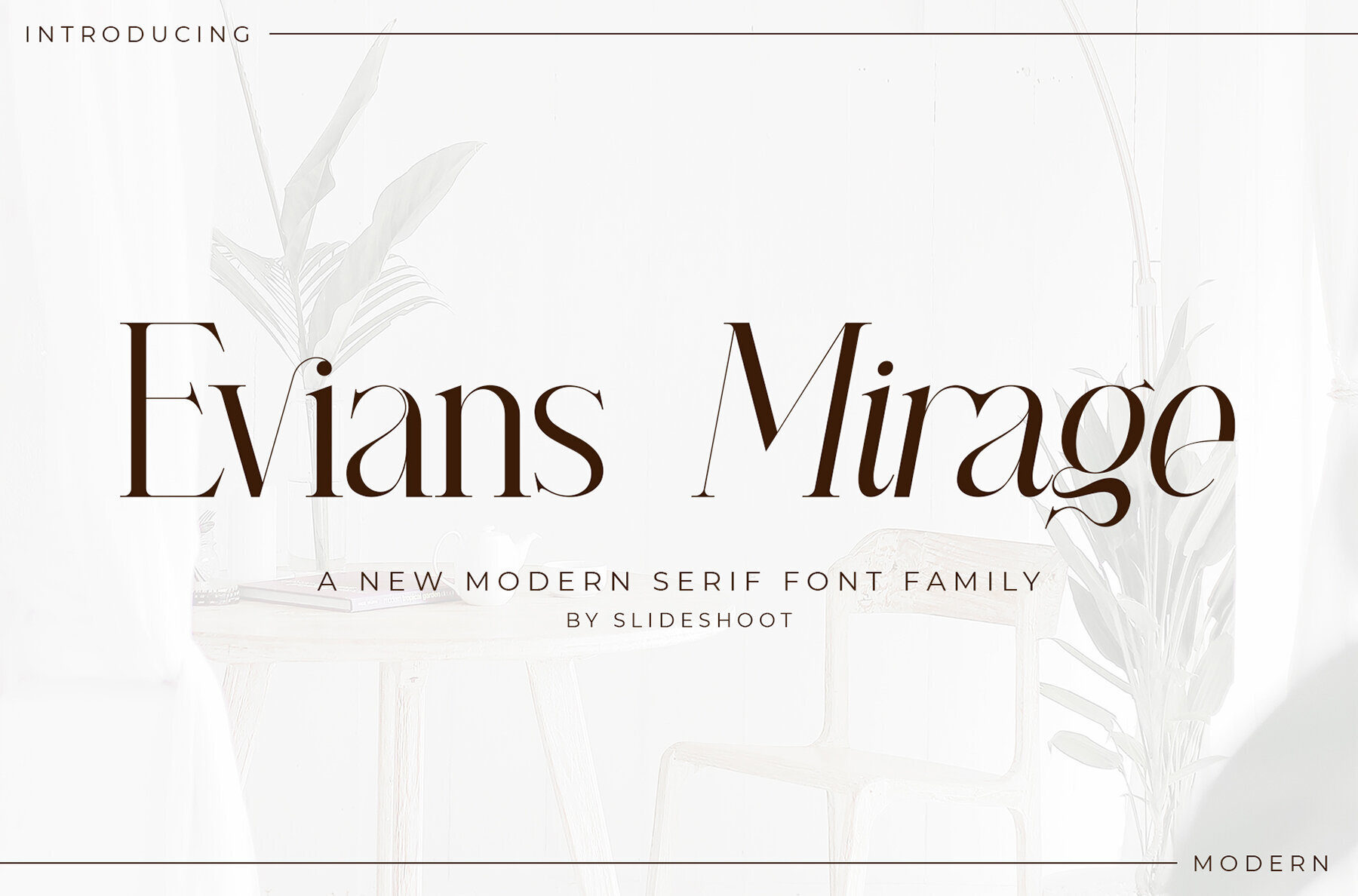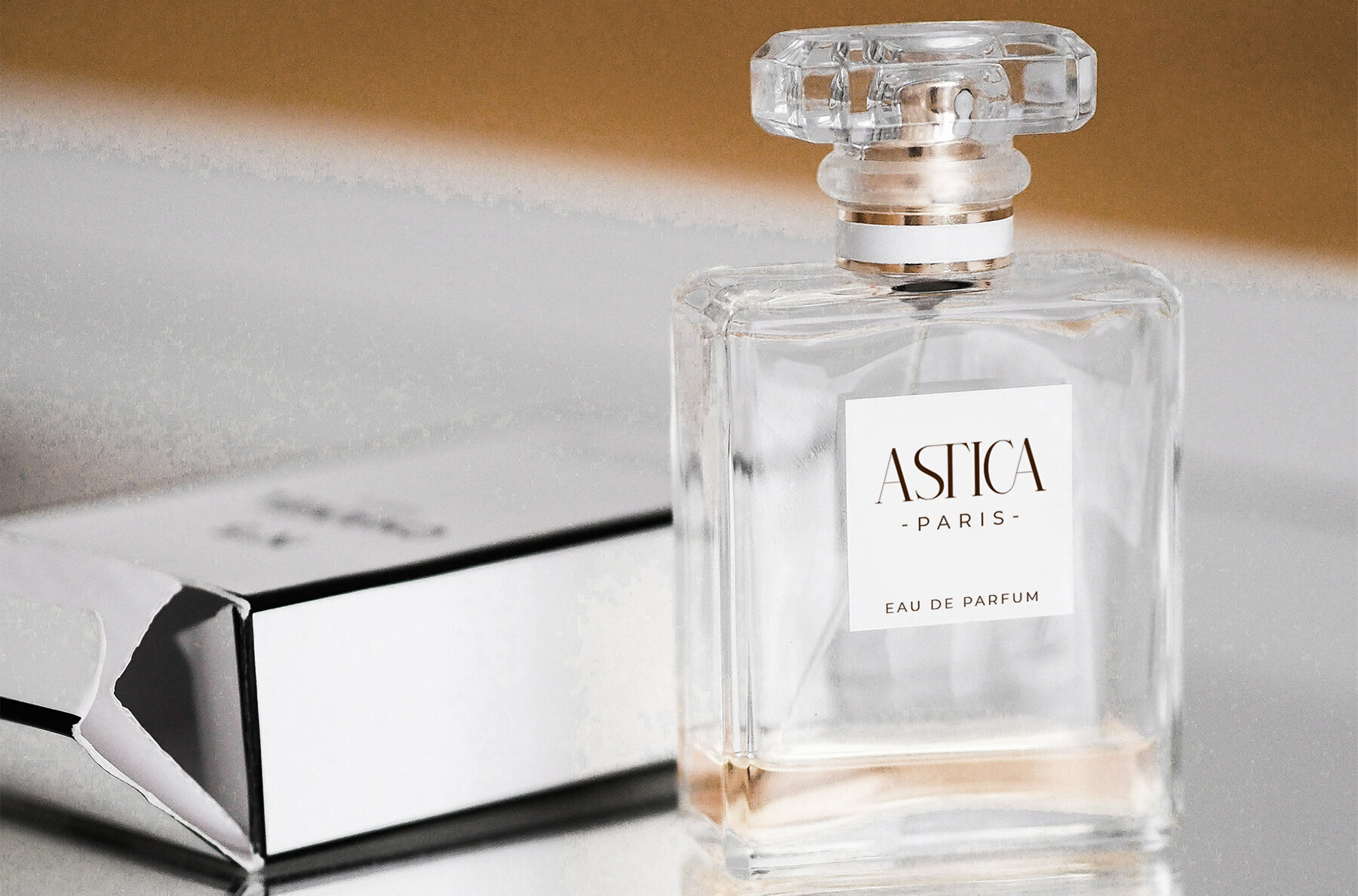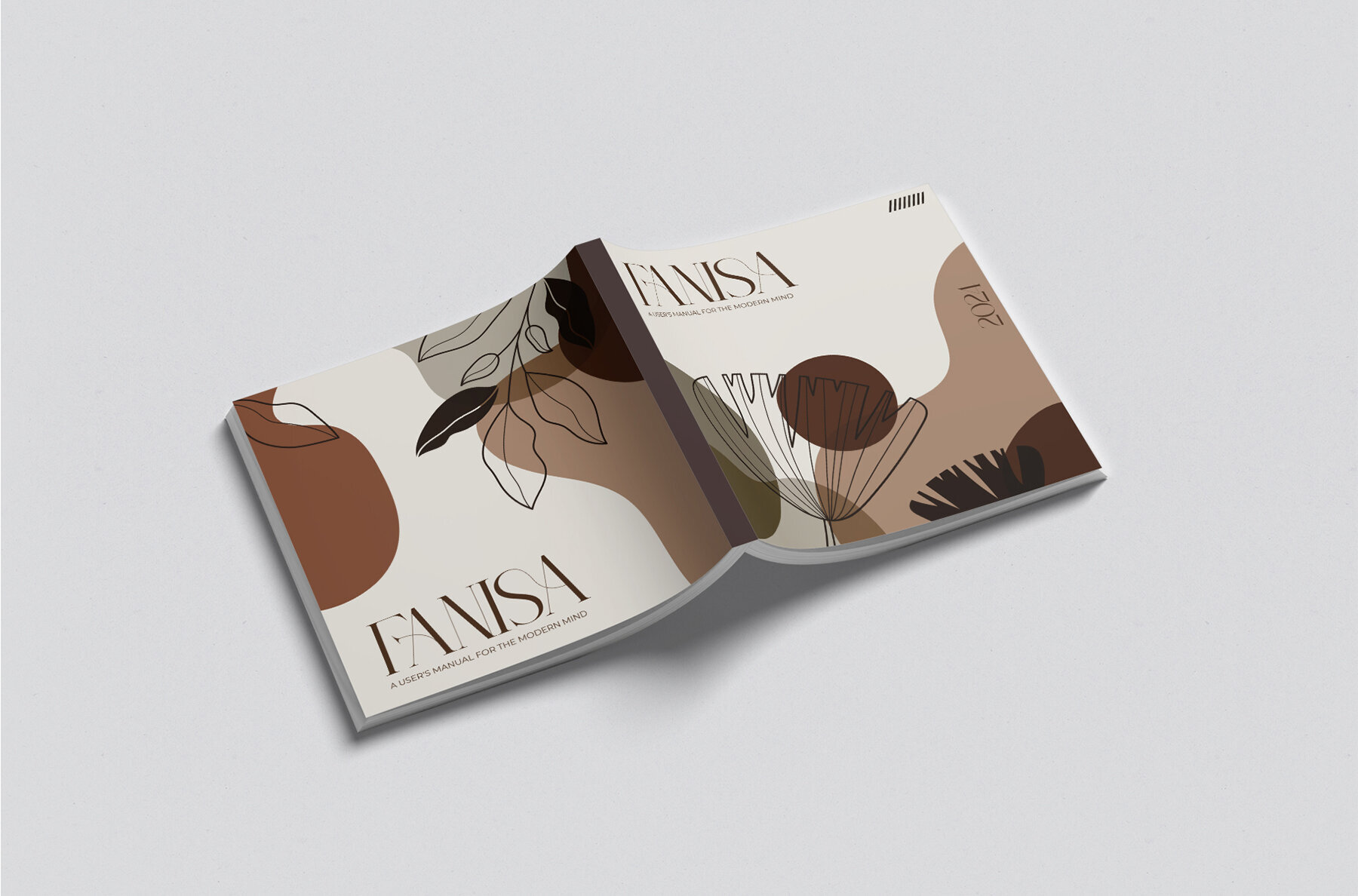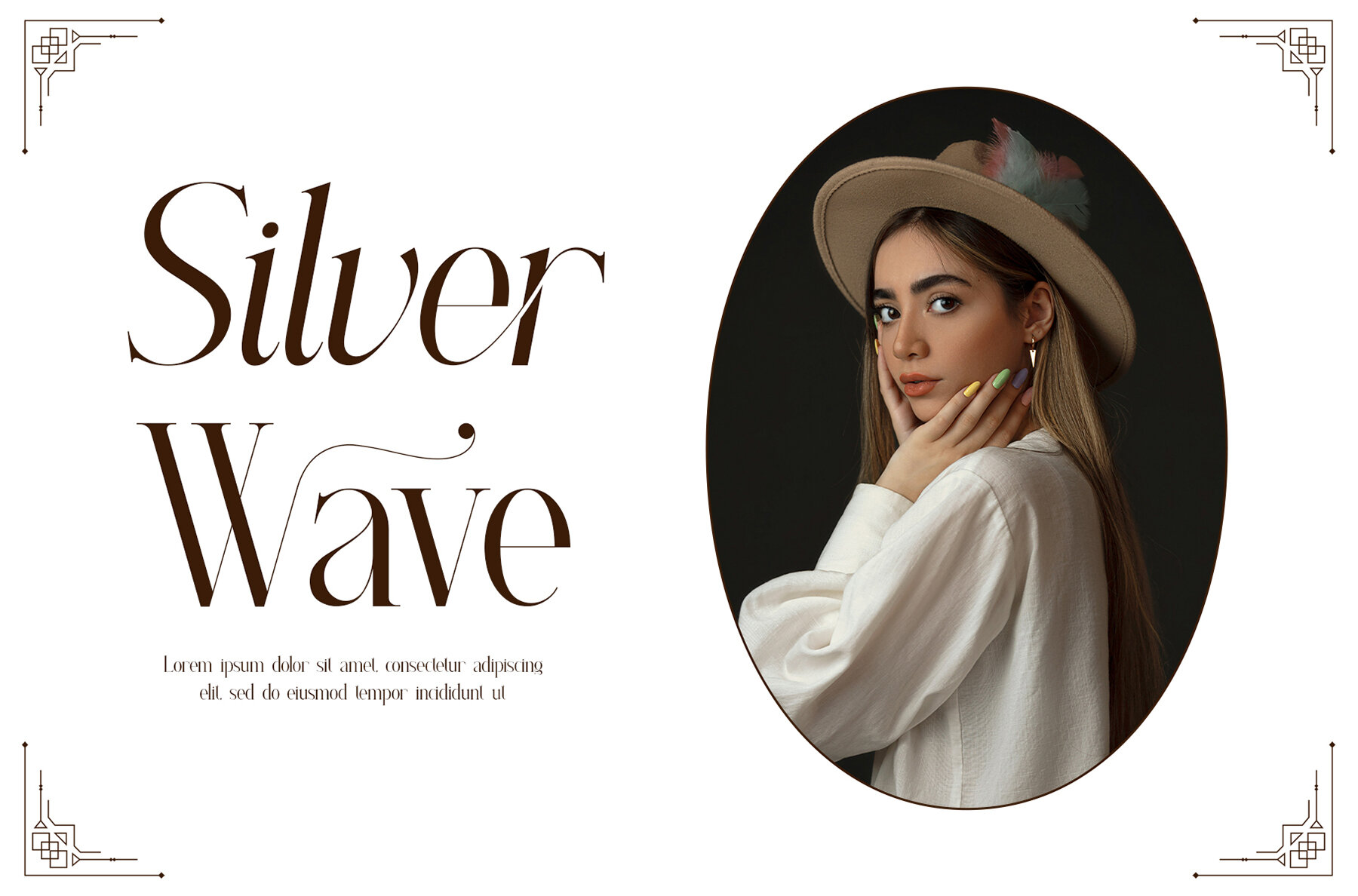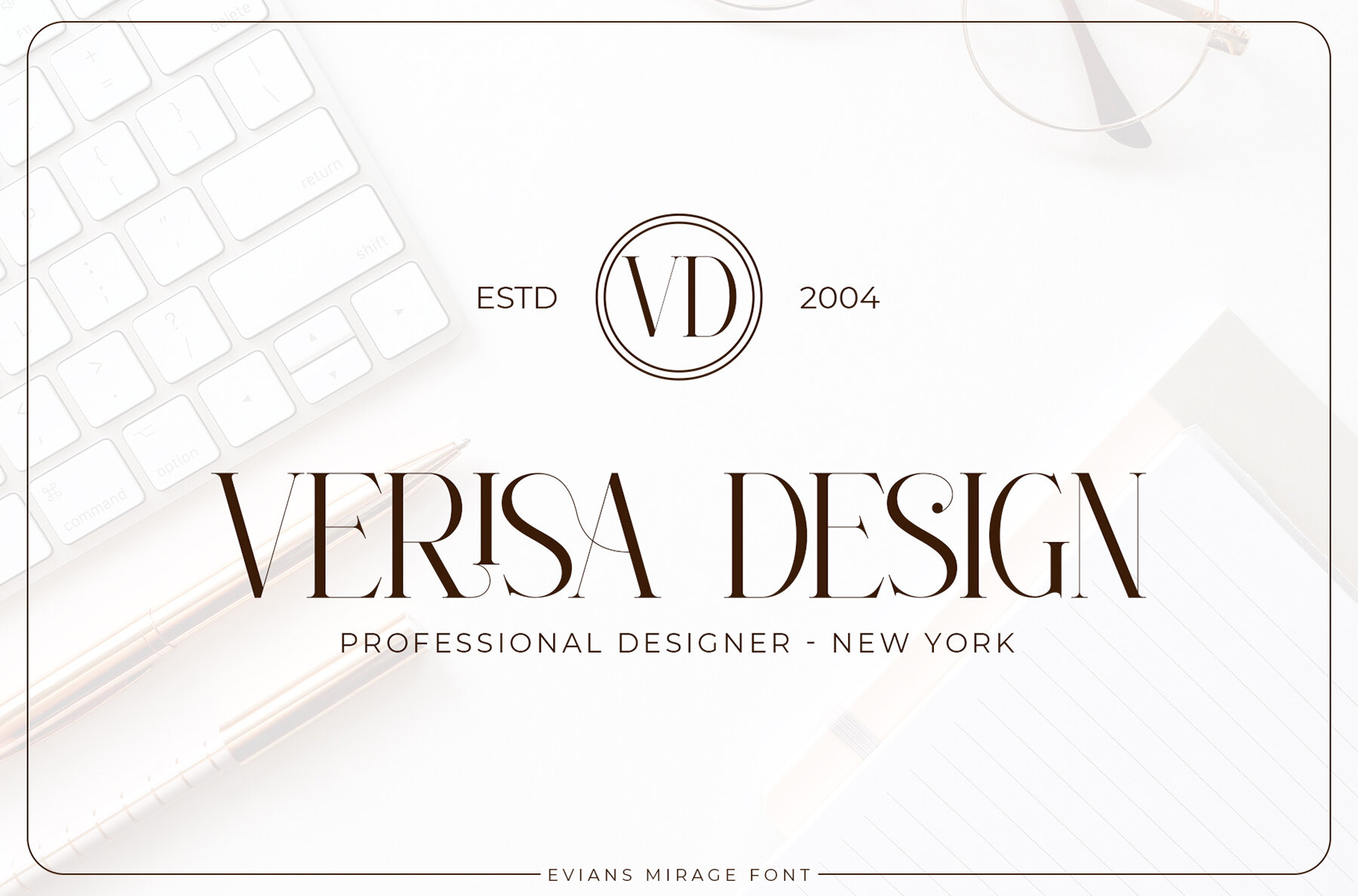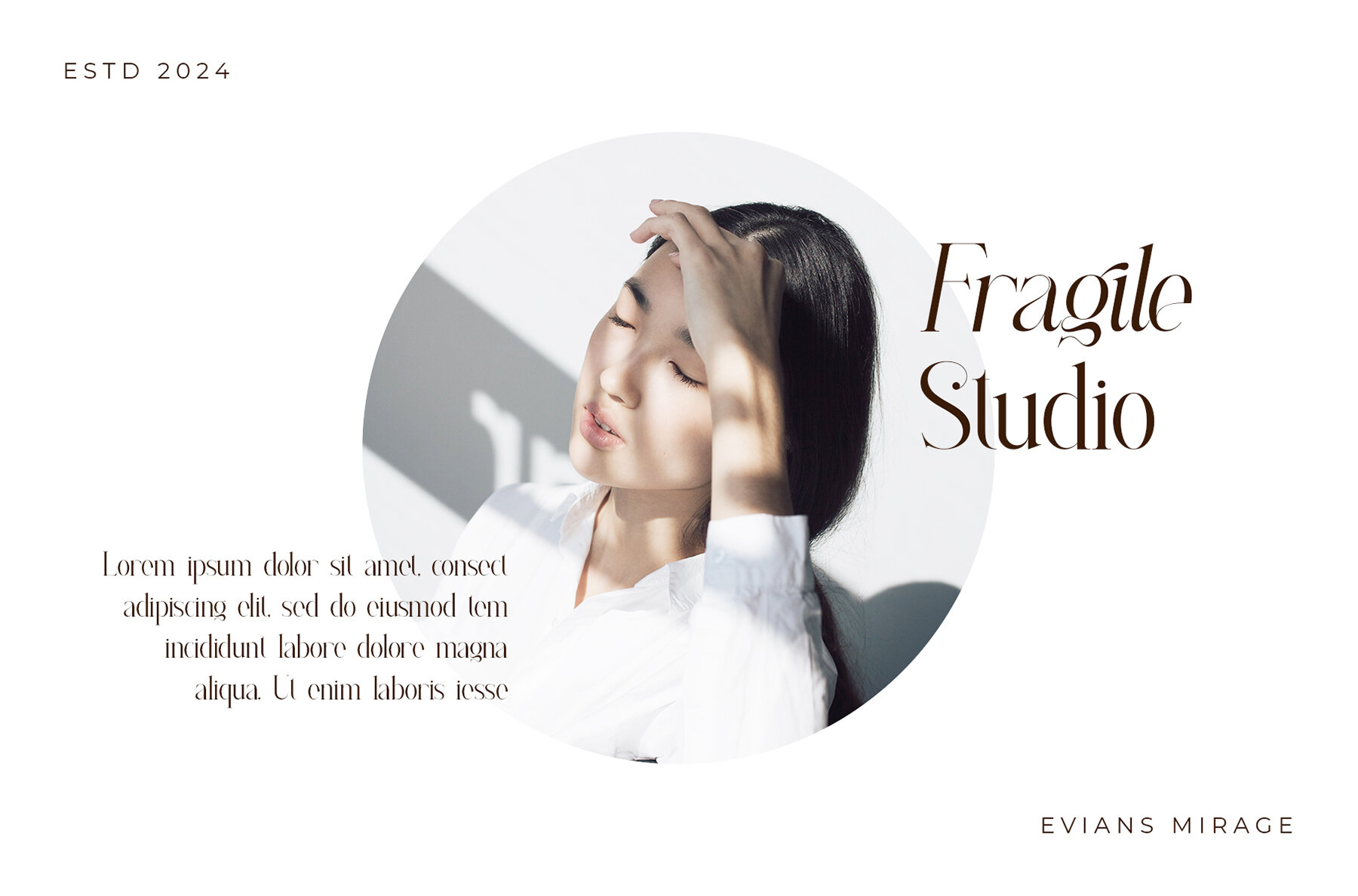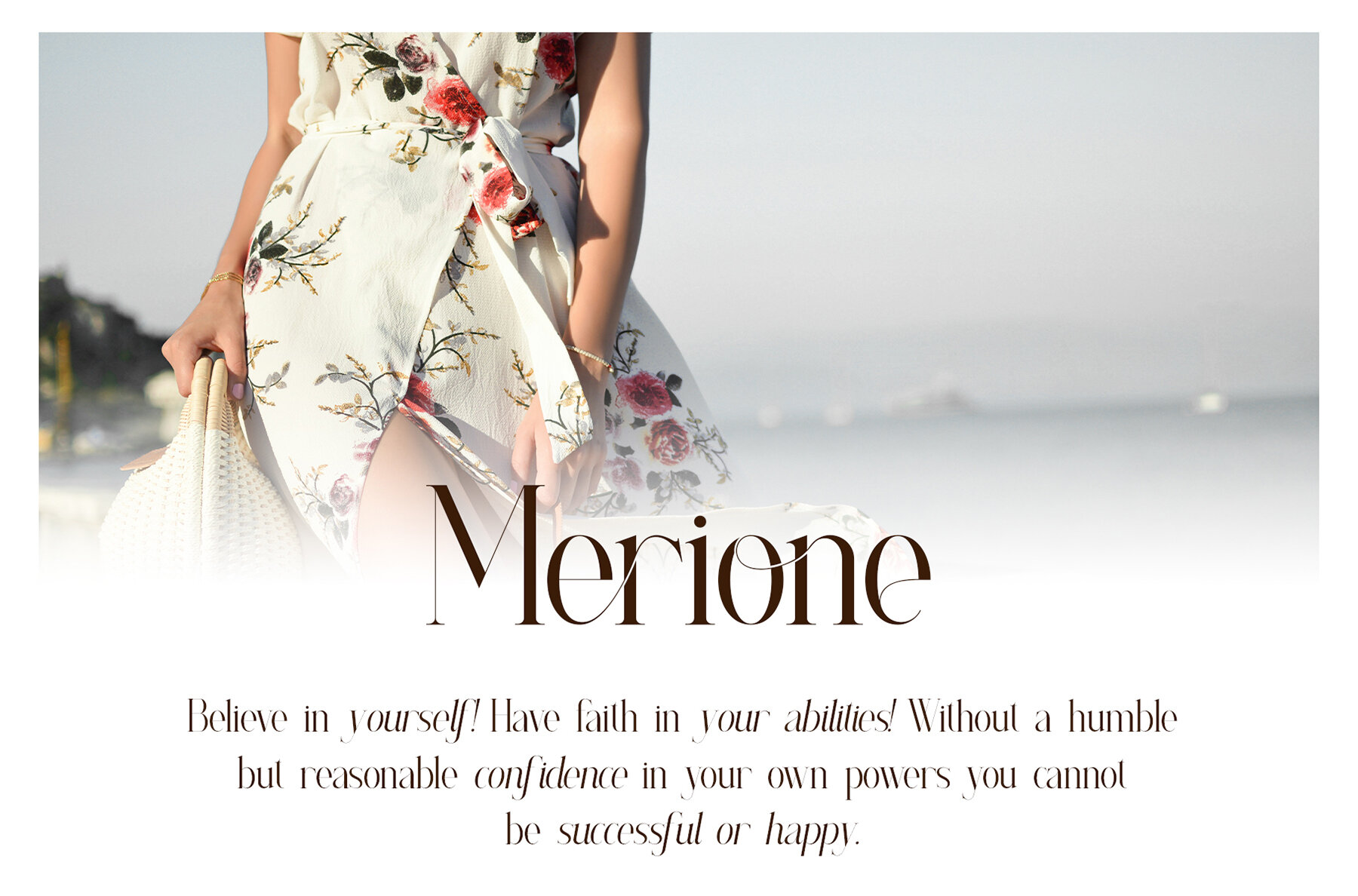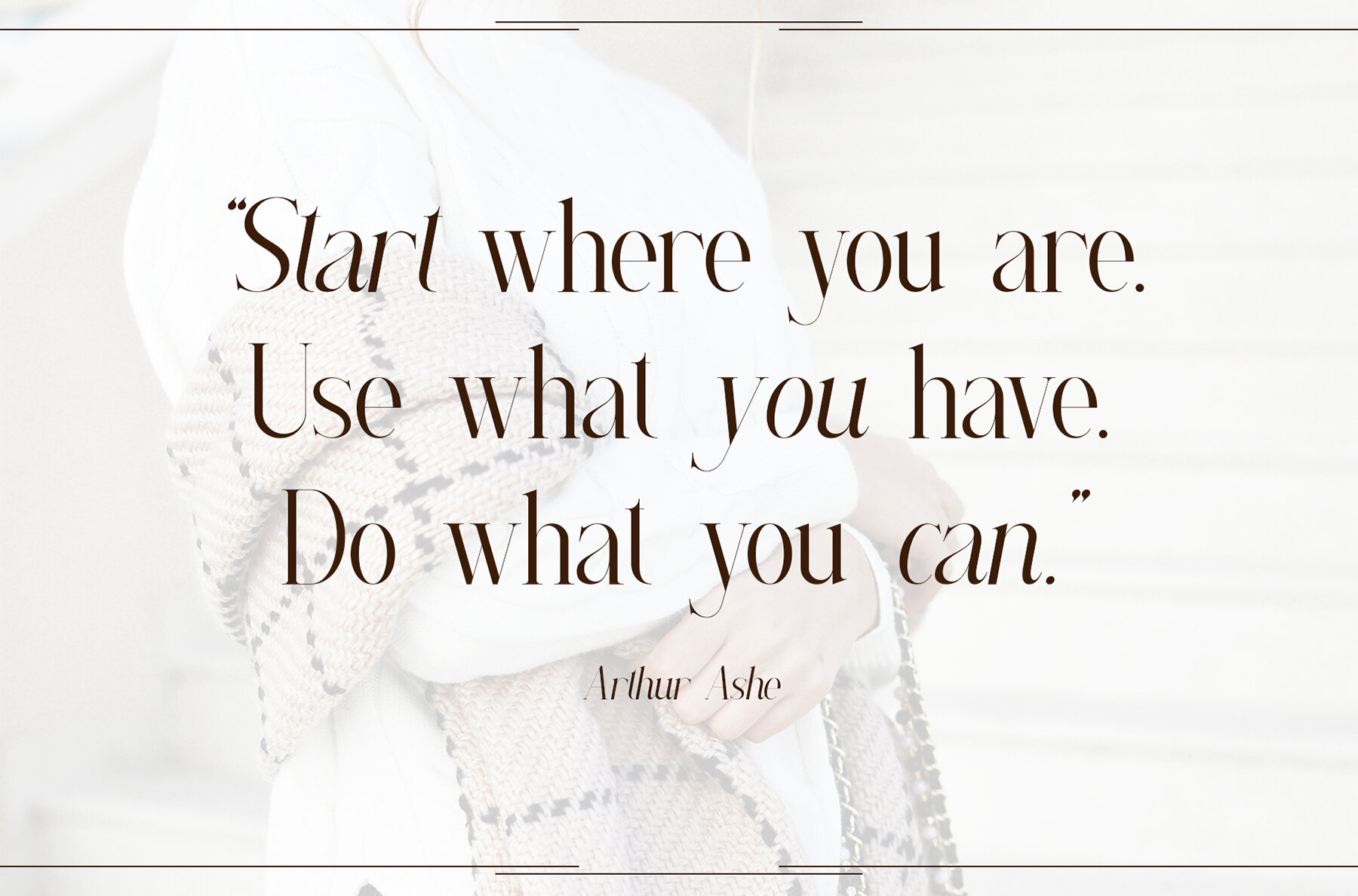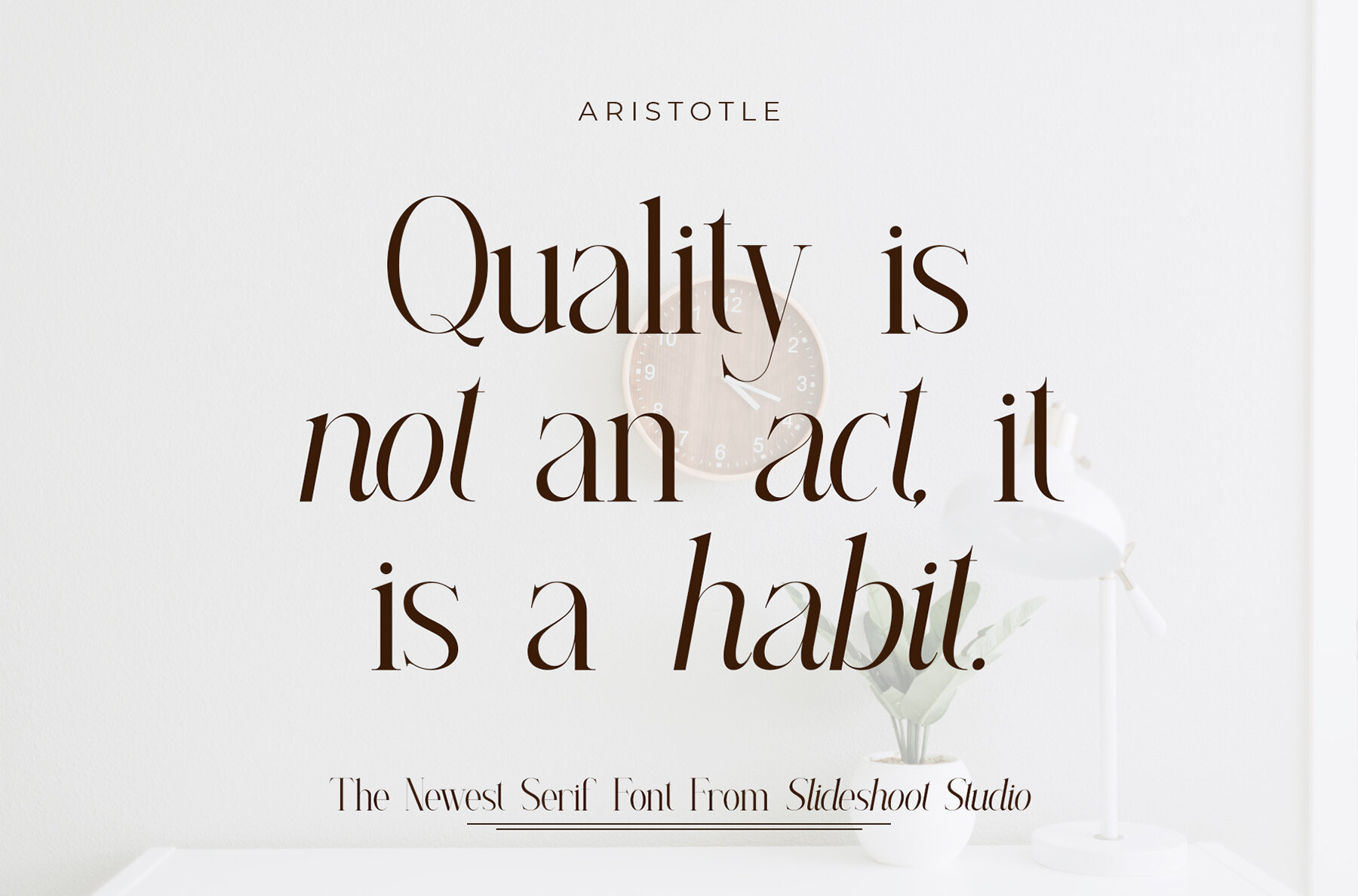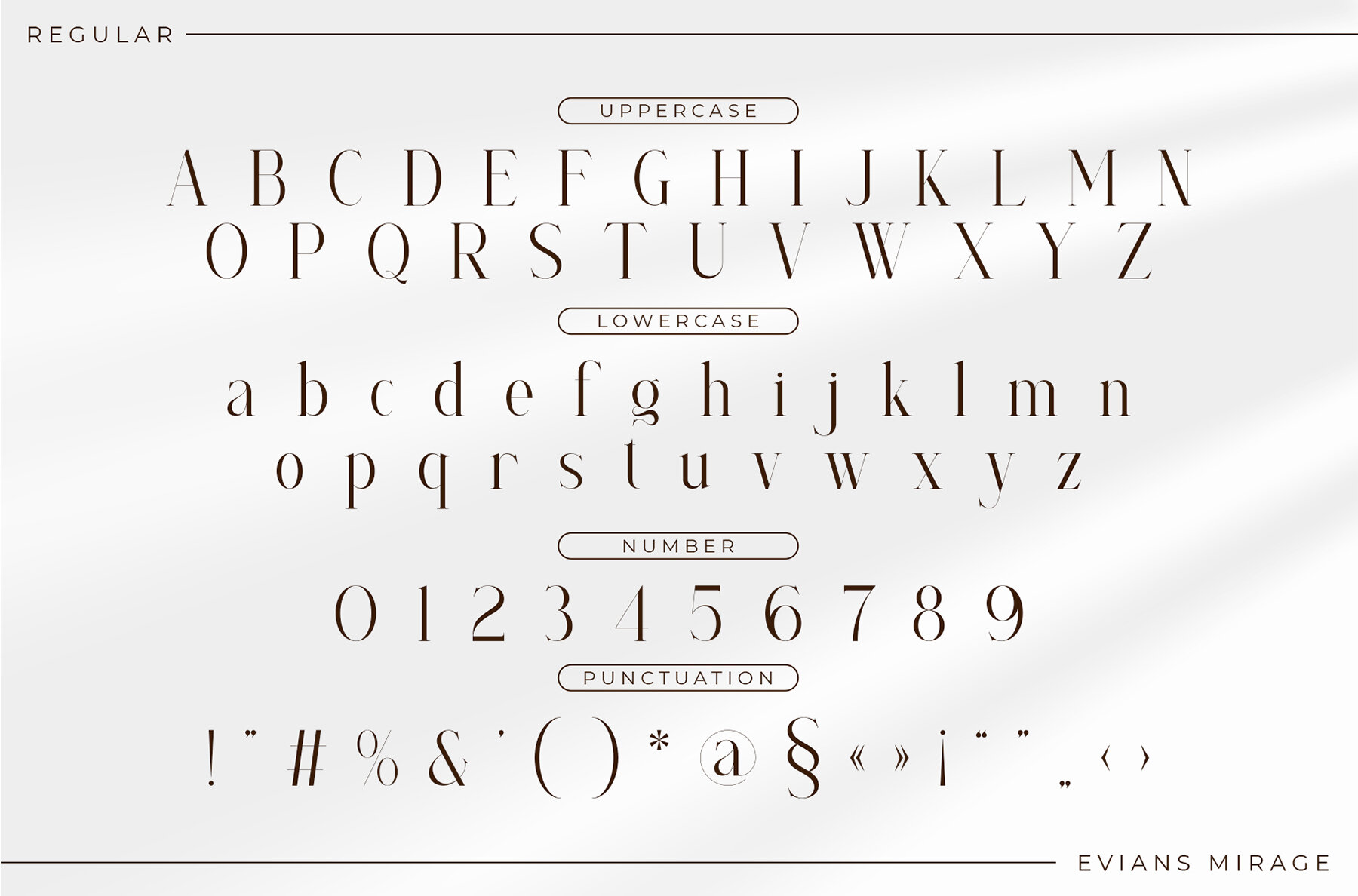
Evians Mirage Font
Evians Mirage Serif is a an elegant and smooth combine typeface regular and italic serif font. He has a beautiful character. It fits perfectly with invitation card designs, company logos, movie titles, movie names, business cards, book titles, brand names and various other designs. Evians Mirage Serif is a subtle serif font that exudes sophistication and elegance. Its stylish alternations and ligatures make this font the perfect partner for any project. FEATURE :
- Uppercase and lowercase
- Numbering and Punctuation